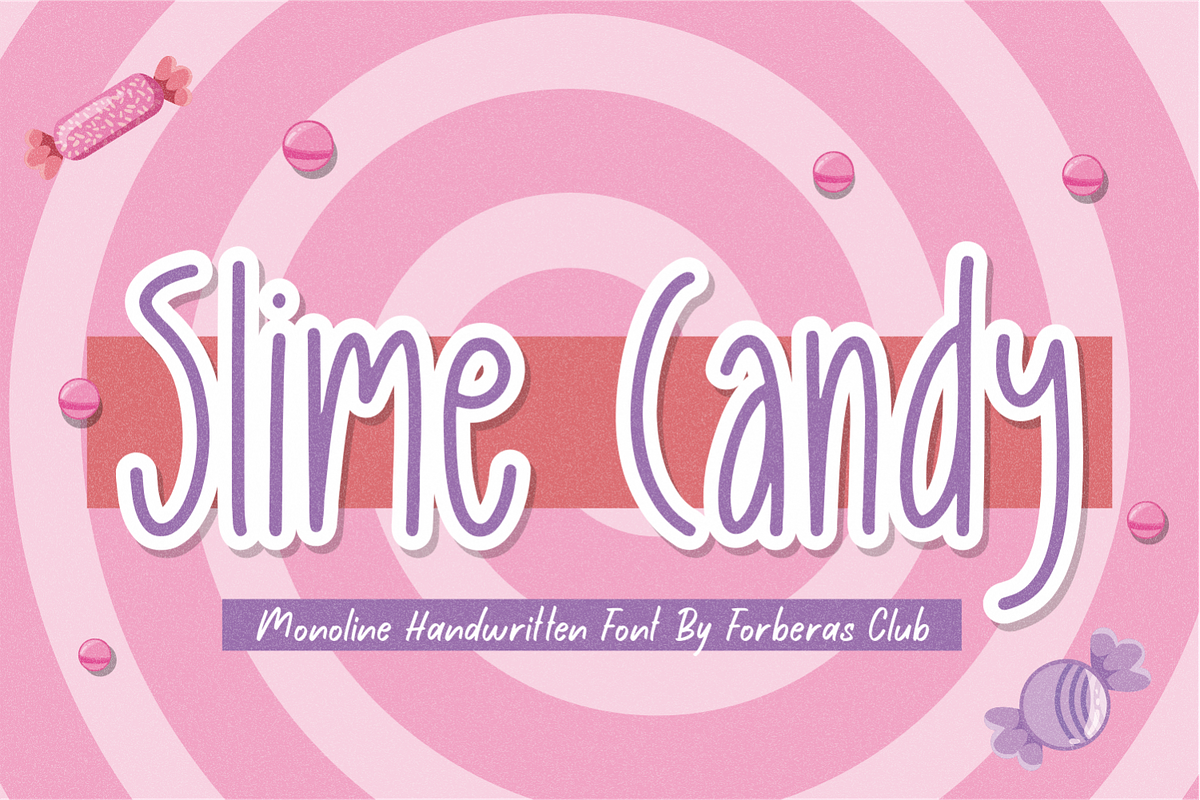
Please note, to use this font for commercial purposes, you must purchase the full version. Slime Candy is a fun and playful font that adds a sweet and quirky vibe to any design. With its bubbly, gooey letterforms, it’s perfect for candy packaging, children’s designs, playful branding, and party invitations. Whether you're designing for a sweet shop, a playful event, or a fun logo, Slime Candy brings a unique and lively energy to your work. Test it out and enjoy free download access for personal use. Let your designs ooze with charm using Slime Candy Font Free Download before purchasing the commercial license. Add a fun and sugary touch to your projects with this delightful font!